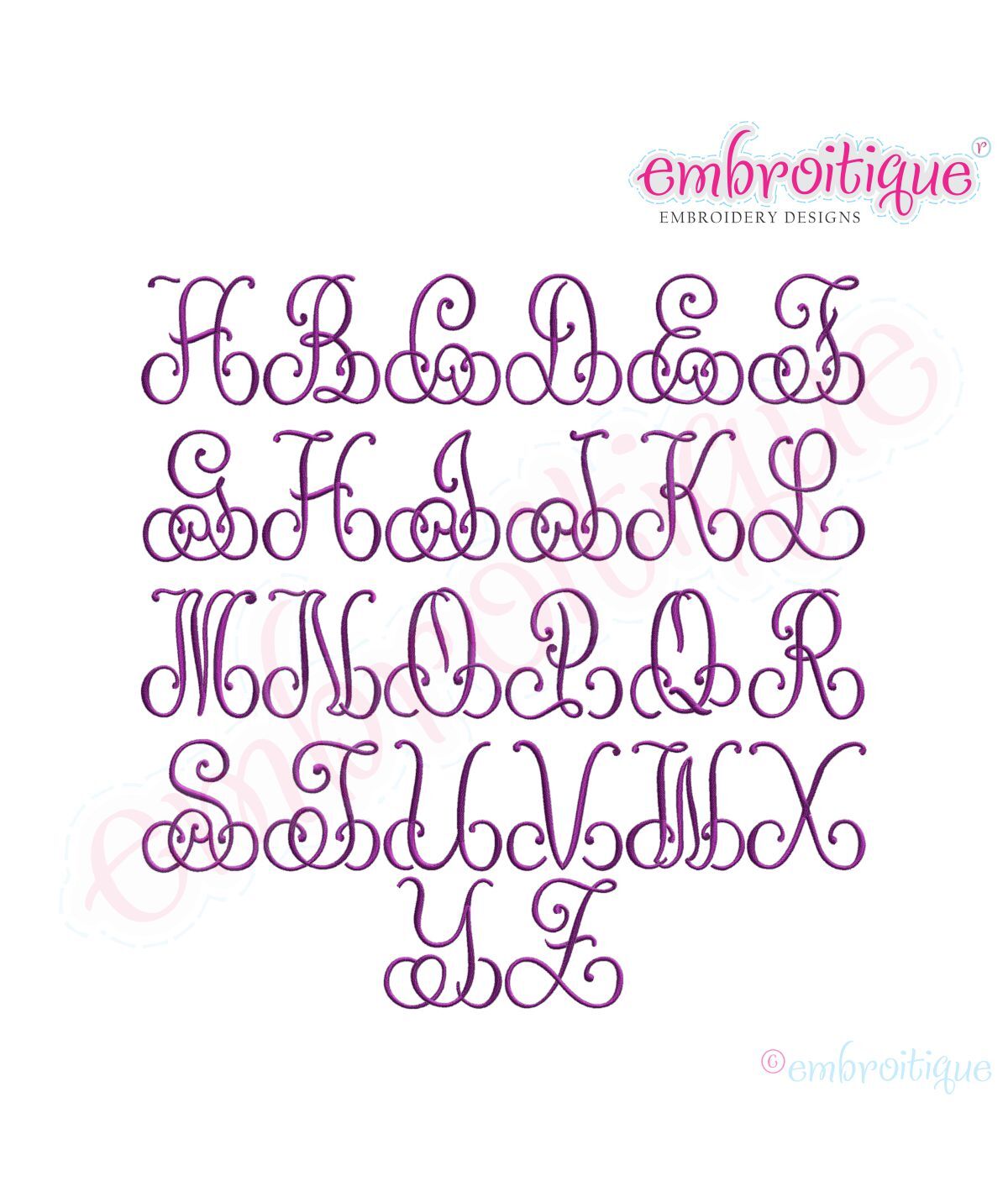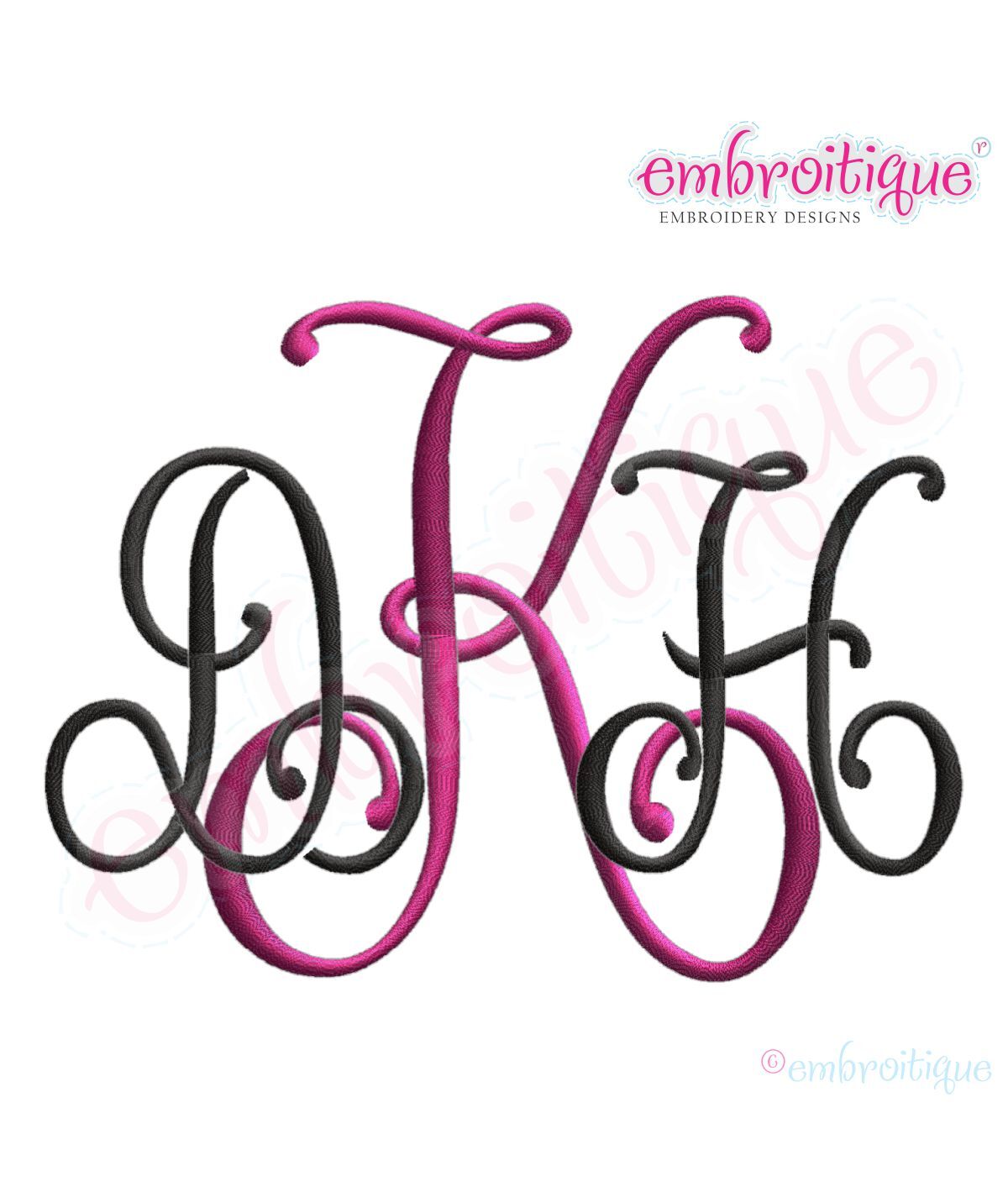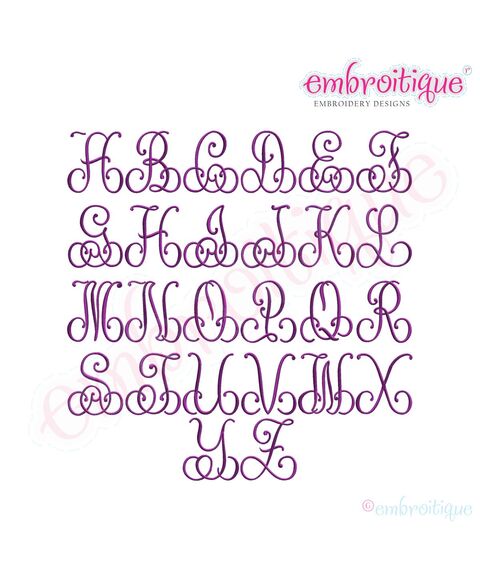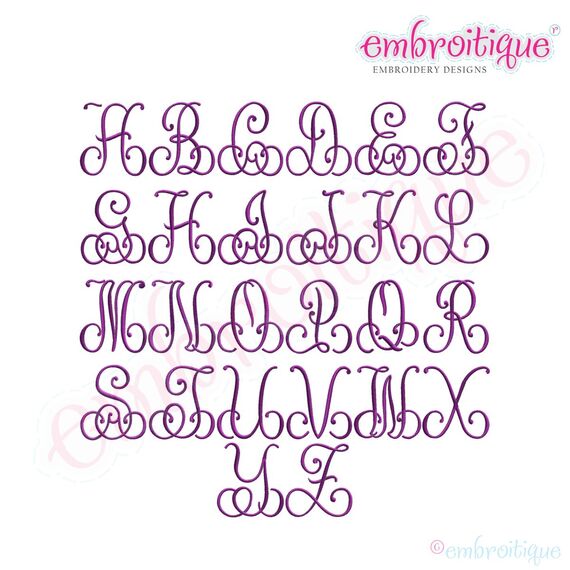
Kennedy Interlocking 3 letter Monogram Set
This is such a beautiful, elegant font! Â Build your own monograms, names, and sayings with these beautiful letters. Â Each letter is an individual file. Â The monogram pictured is an example of what you can do with this set!